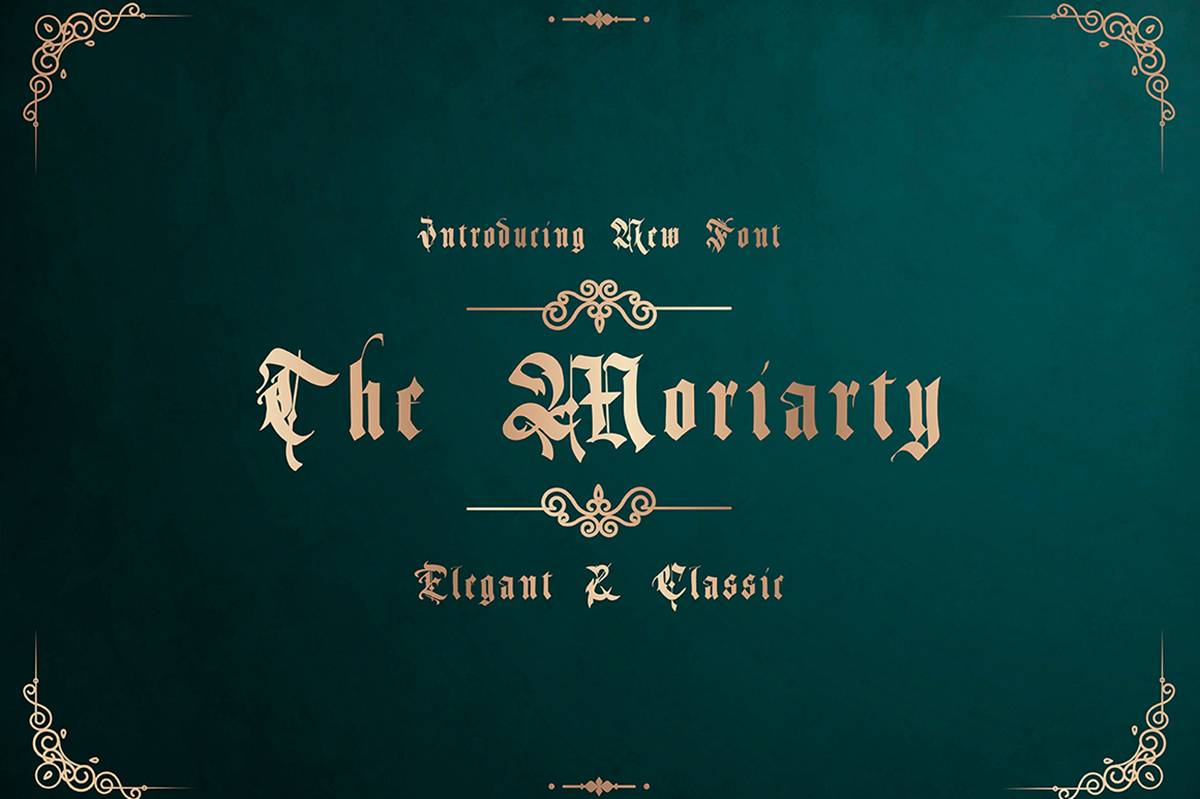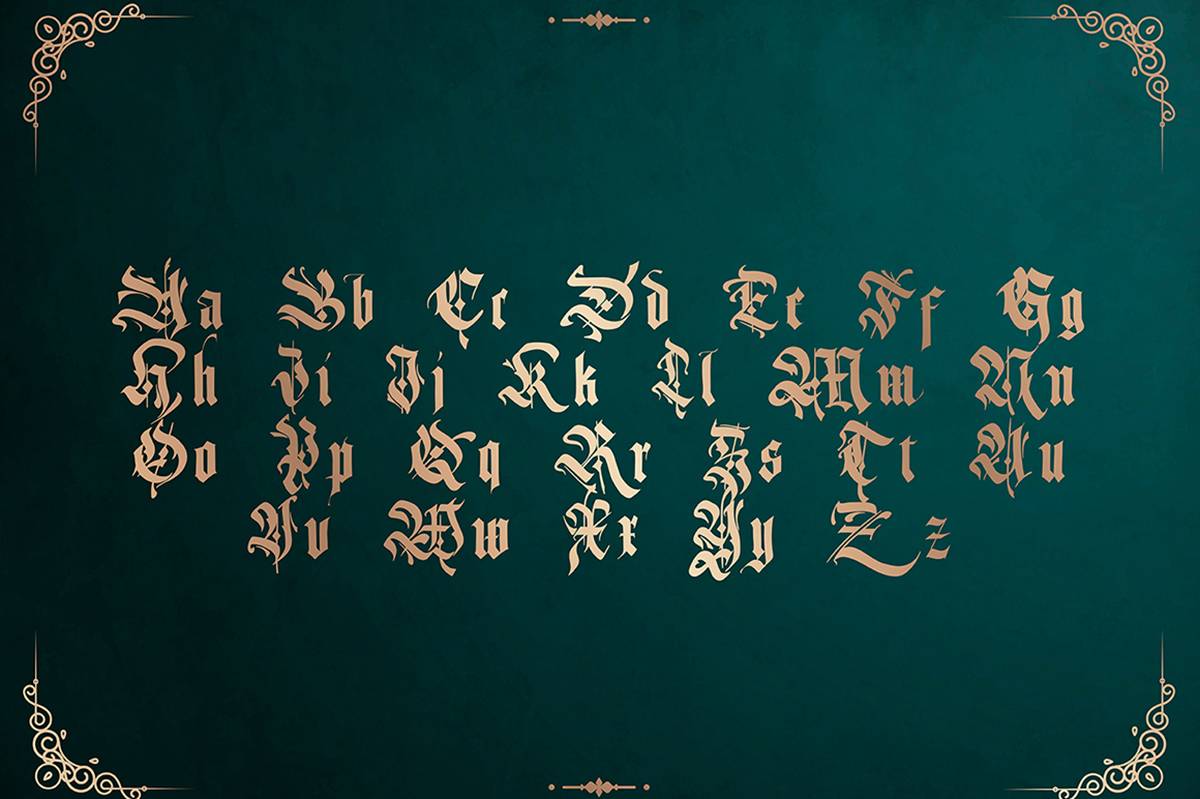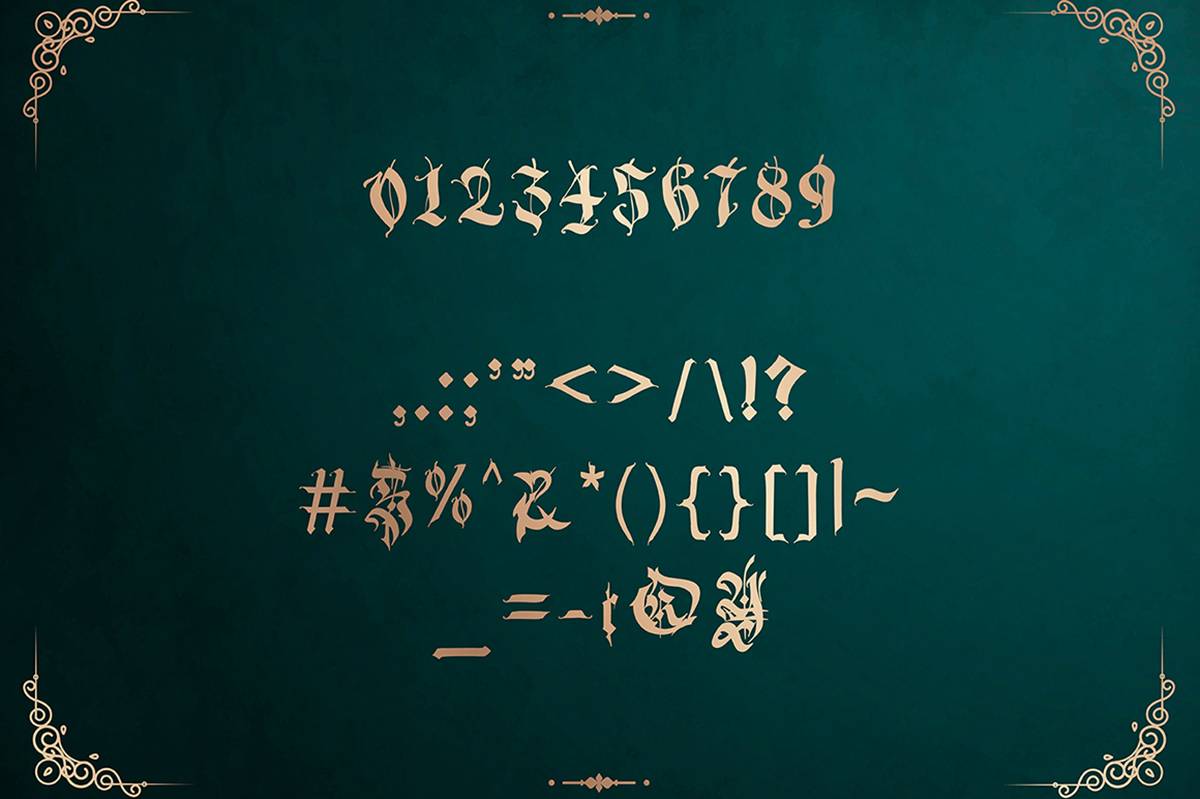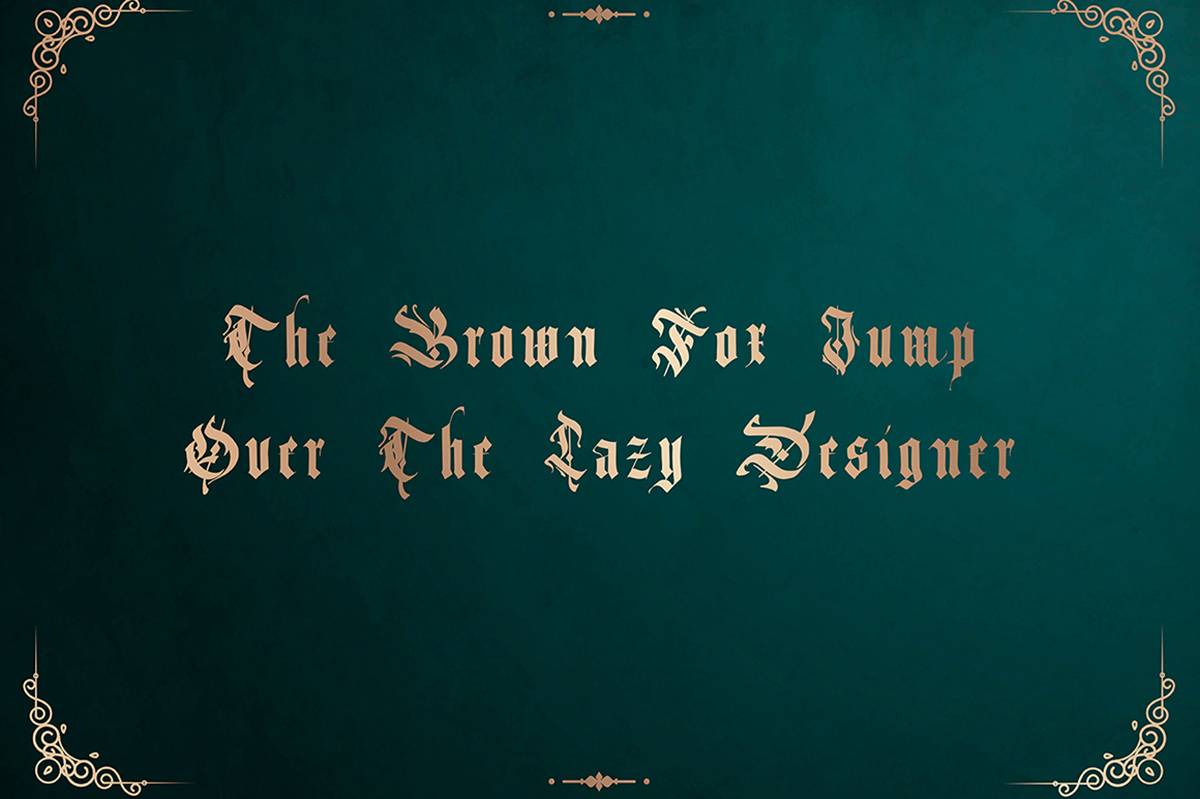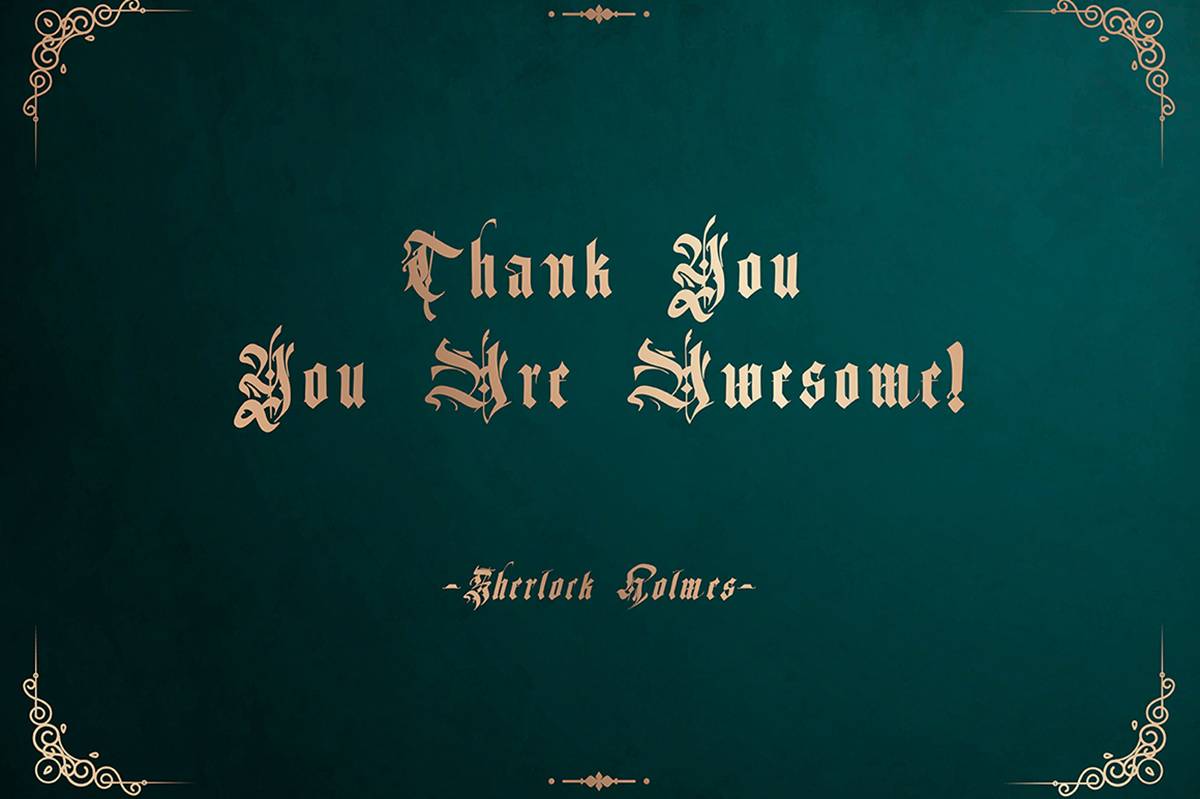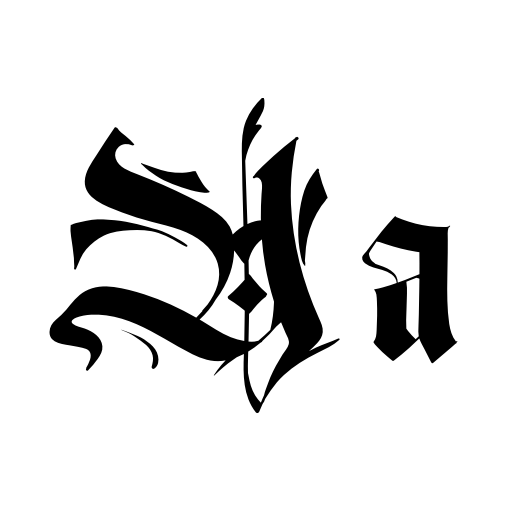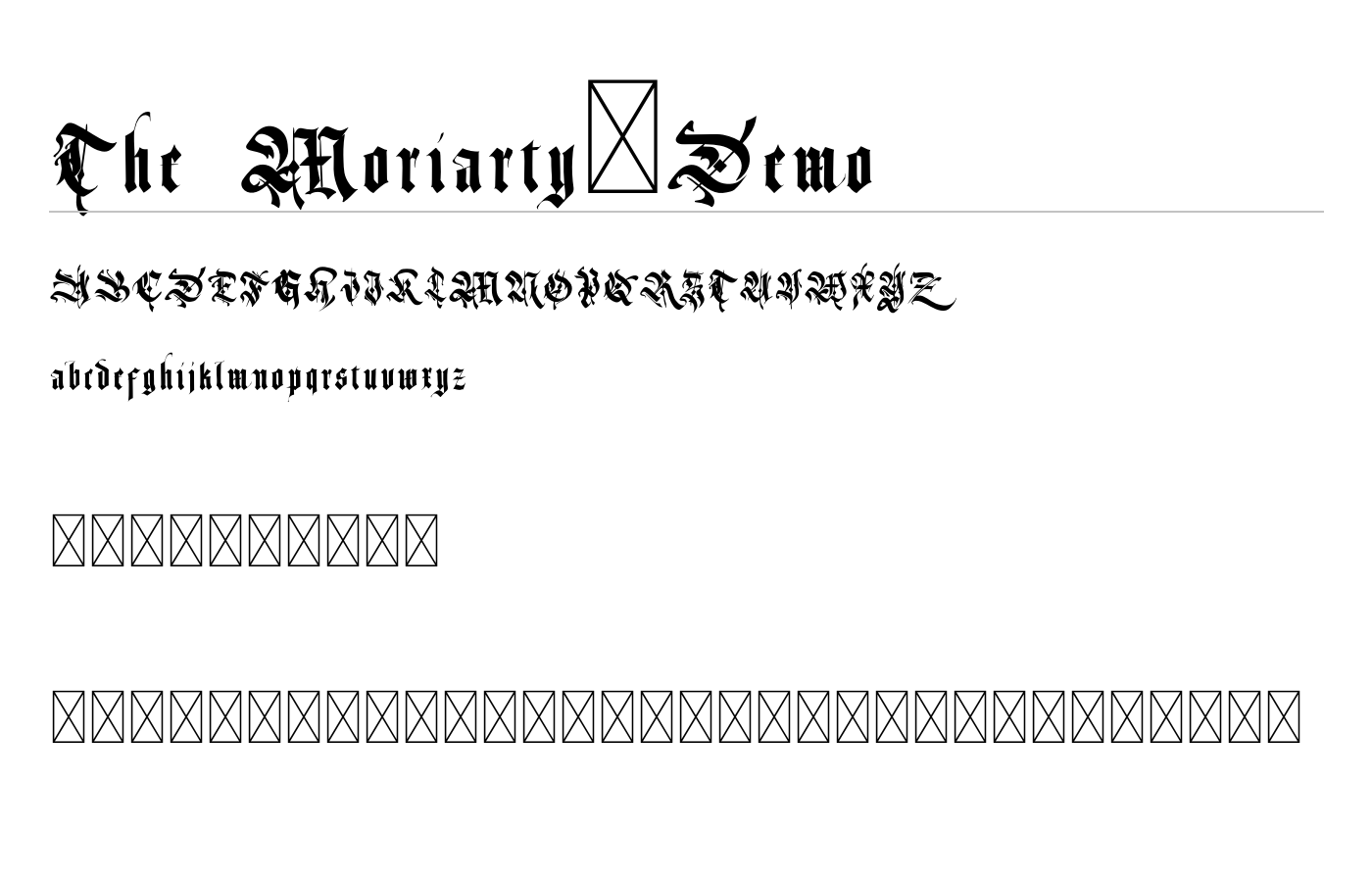
The Moriarty Font is a bold, blackletter-style typeface that features intricate, sharp-edged strokes and a distinct gothic character. Its dramatic, highly stylized letterforms evoke a vintage, medieval feel, making it ideal for designs seeking a historical, mysterious, or darkly elegant aesthetic. This font works best in headline, logo, and decorative uses where a strong visual impact and classic atmosphere are desired.
The Moriarty Font
About The Moriarty Font
| Font family | The Moriarty Font |
| Designer | Esa Prasetio Nugroho |